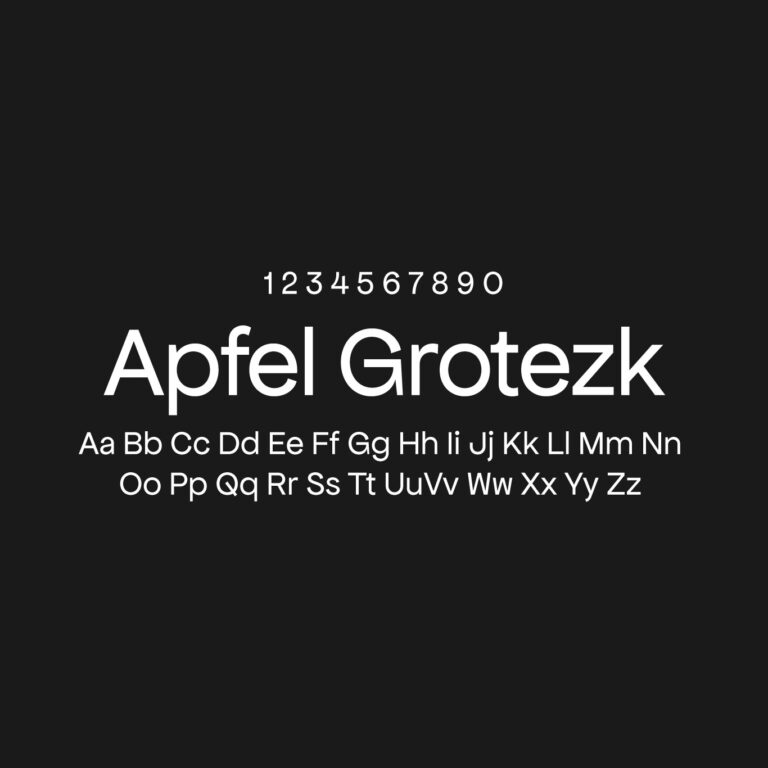
Apfel Grotezk is an airy sans-serif typeface designed by Luigi Gorlero and released by Collletttivo. It combines neo-grotesque and geometric influences with soft proportions, open shapes and a friendly personality, making it useful for posters, branding, editorial layouts, websites, packaging, zines, social media graphics and experimental display design.
The Brukt style gives the family a more distinctive appearance with cut-out shapes inside the letters, making it useful for experimental posters, independent publishing, risograph-style layouts, cultural graphics and design projects that need a more unusual typographic texture.
Designer: Luigi Gorlero
Foundry: Collletttivo
Released: 2019